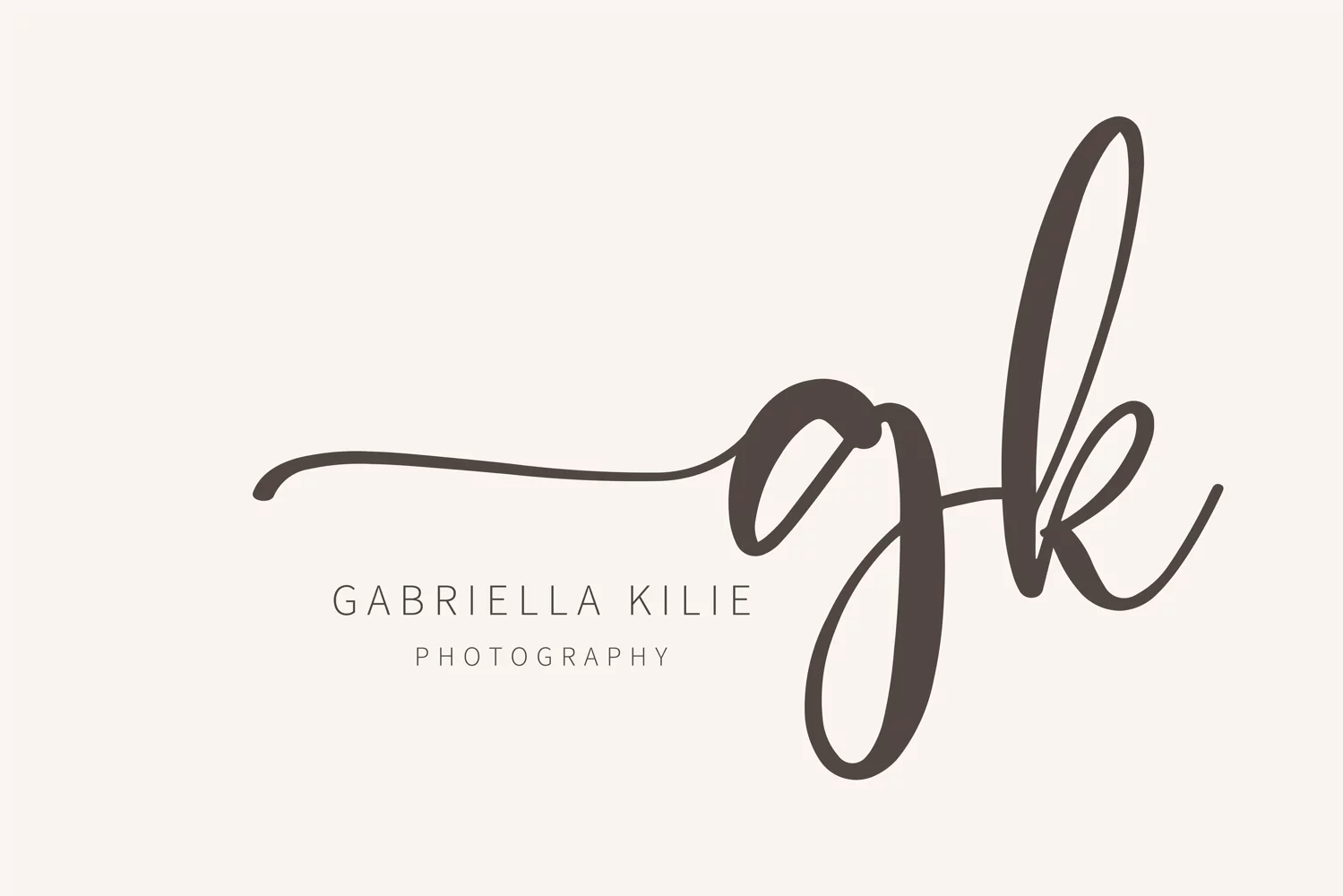
Delanie - Stylish handwritten script
Delanie feels equally delicate and refined. It looks lovely on wedding invitations, thank you cards, quotes, greeting cards, logos, business cards, and every other design which needs a customized touch. This font is PUA encoded which means you can access all of the glyphs and swashes with ease!
- Alternate swashes letter (begin swashes and end swashes)